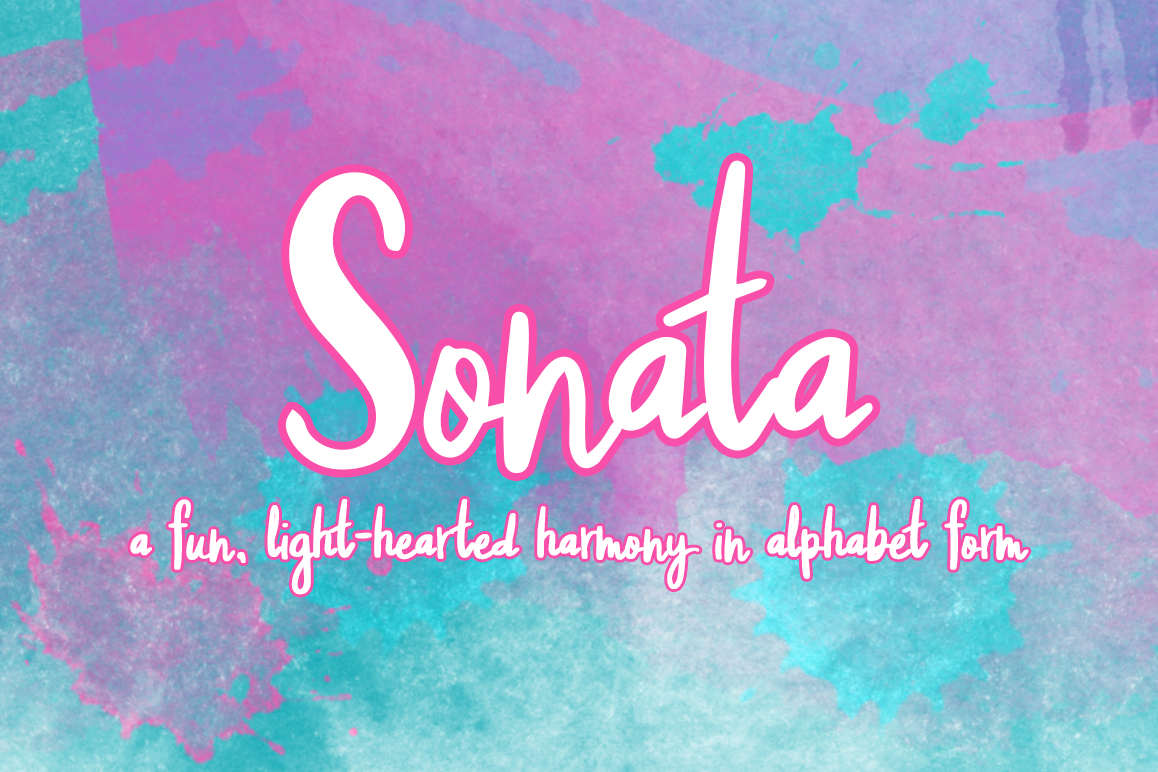
Sonata
MixSonata-Regular
MIX SONATA, a fun, light-hearted harmony in alphabet form, is a handwritten semi-script typeface fit for handmade and DIY themed projects.